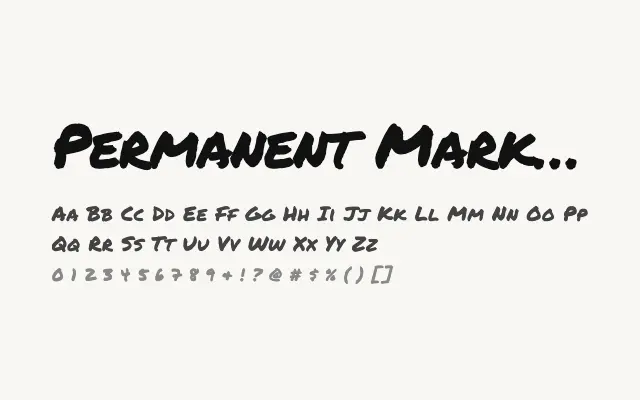
Permanent Marker
A convincing marker-pen script that captures the raw, informal energy of hand-lettering.
Permanent Marker mimics the thick, slightly rough strokes of a felt-tip marker with enough variation to feel genuinely hand-drawn rather than mechanical. It is a go-to choice for informal headlines, protest-style graphics, educational materials, and any context that needs an approachable, no-frills handwritten feel. Its limited Latin-only coverage and single weight constrain its utility but its character is immediately legible and effective.
Permanent Marker faithfully replicates the thick, spontaneous strokes of a broad-tipped marker pen, with deliberate irregularities and ink bleed that reinforce its hand-drawn authenticity. It is uncompromisingly casual and informal.